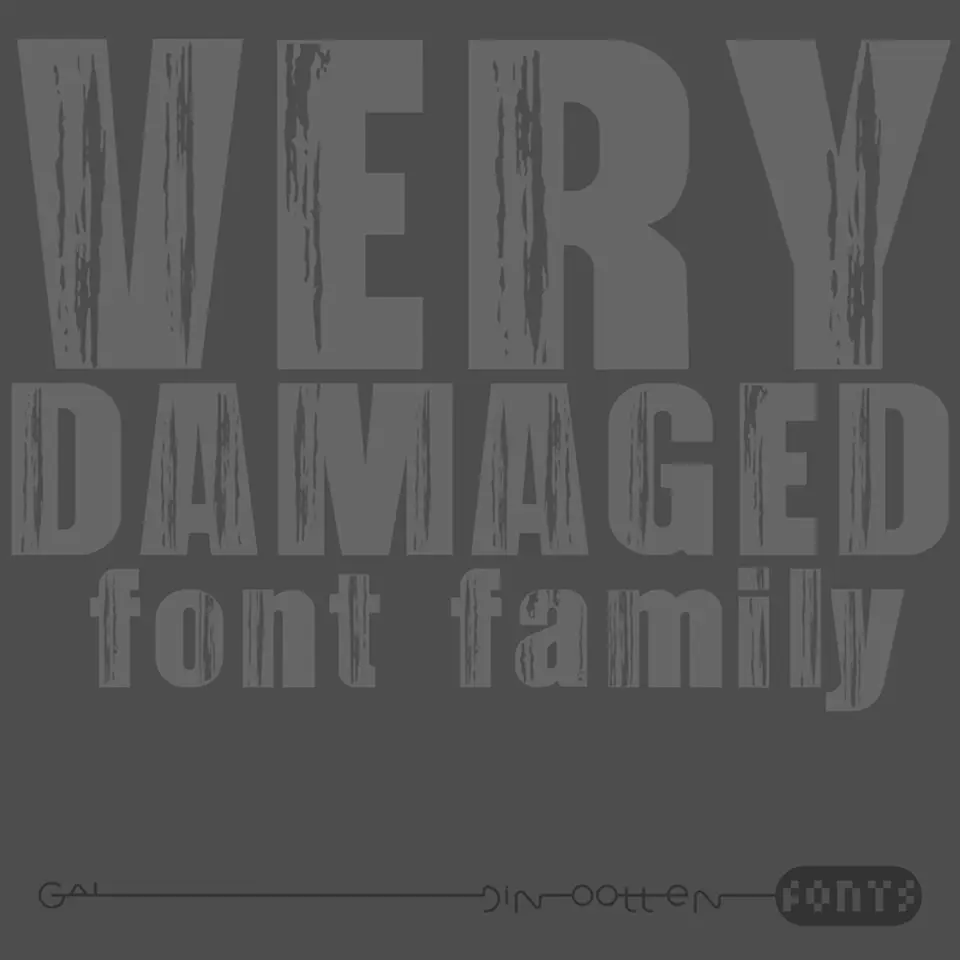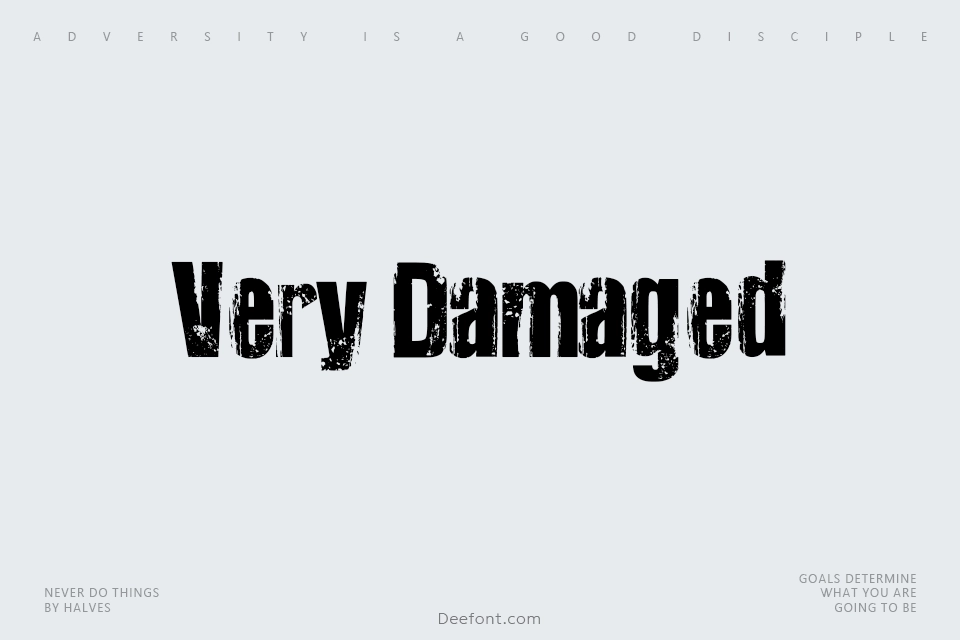
Very Damaged Font
Very Damaged is a distinctive distressed display font designed to captivate with its edgy and rebellious aesthetic. This grunge-inspired typeface combines vintage charm with modern attitude, featuring worn-out letterforms that evoke raw energy and character. Perfect for bold graphic designs, album covers, movie posters, and unconventional branding projects, Very Damaged delivers impactful visual communication with its unique damaged appearance. The font boasts excellent versatility across design disciplines, offering clean legibility despite its rugged presentation, making it an exceptional choice for designers seeking distinctive typography with personality and flair.